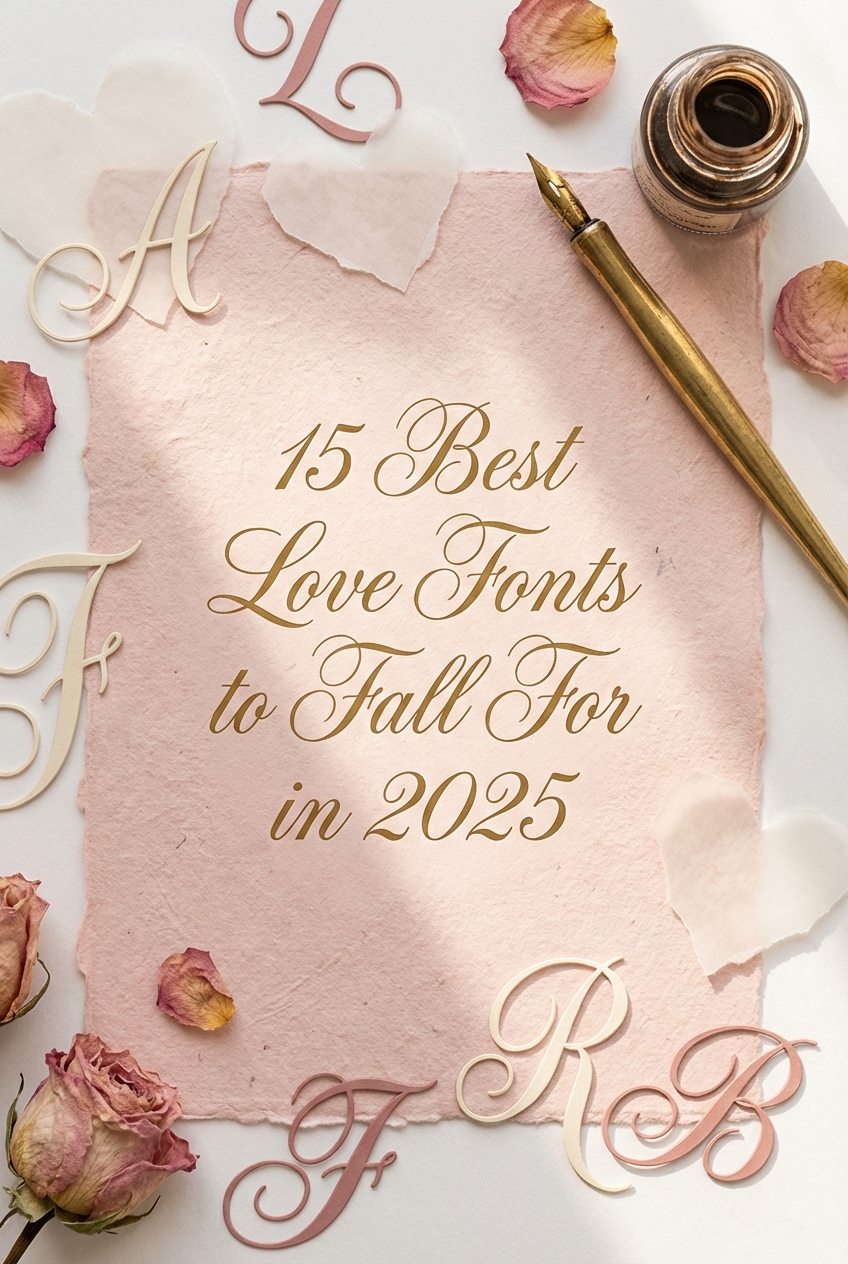
In the design world of 2025, warmth and authenticity are everything. Gone are the days of cold, minimalist typography; today’s trends are all about creating genuine emotional connections. That’s where love fonts truly shine. Whether you’re a designer crafting the perfect wedding invitation, a DIY crafter creating heartfelt Valentine’s cards, or a brand builder looking for a touch of romance, the right font is crucial. This curated list features 15 of the most popular and swoon-worthy love fonts right now. From elegant scripts to charming serifs, these typefaces will help your projects speak directly to the heart.
Top Collection Picks (2025-2026 Edition)
1. Peace and Love
Peace and Love is an immediate go-to for designers crafting visuals with a groovy, 70s-inspired vibe. From the creative minds at Font Door and Salt and Pepper Fonts, this display typeface radiates a distinct, free-spirited energy that feels both nostalgic and perfectly suited for current retro trends. Its bold, playful letterforms are designed to make a statement, delivering a powerful dose of personality that works wonders for headline text and eye-catching branding.
- Bold and chunky display letterforms
- A distinct retro, psychedelic-inspired style
- Expressive characters with a handmade feel
- Perfect for high-impact headlines and titles
- Music festival posters and album art
- Apparel graphics and merchandise design
- Branding for bohemian boutiques or retro cafes
- Social media quotes and event announcements
2. Little Love
Little Love exudes a tender and whimsical charm that feels as personal as a cherished love note. This handwritten script from Blessed Print dances across the page with an effortless, organic flow, combining the innocence of a youthful scrawl with a refined, elegant sensibility. Its delicate letterforms and authentic connections create a beautifully intimate and handcrafted feel, making it an ideal choice for designs that aim to communicate sincerity, warmth, and heartfelt emotion.
- A delicate, flowing handwritten script with a personal touch
- Includes natural ligatures for an authentic, seamless look
- Clean, thin strokes that maintain legibility
- Full set of uppercase, lowercase, numerals, and punctuation
- Wedding invitations, save-the-dates, and romantic event branding
- Boutique packaging, logos, and tags for artisanal products
- Heartfelt social media quotes and elegant blog headers
- Personalized stationery, signatures, and greeting cards
3. I Love You
I Love You is a charming and deeply personal script font from IM Studio that feels like a treasured handwritten note. Its elegant, flowing characters connect with an effortless grace, creating a look that is both sophisticated and wonderfully authentic. The slight variations in stroke and baseline give it a genuine, human touch, making it the perfect vehicle for messages that come straight from the heart. This font doesn’t just write words; it conveys sincere emotion with a timeless, romantic flair.
- A complete set of uppercase and lowercase letters, numerals, and punctuation.
- Includes beautiful stylistic alternates and ligatures for a custom, handwritten feel.
- Smooth, connected letterforms that mimic natural, flowing handwriting.
- Multilingual support for broad usability across different projects.
- Wedding invitations, save-the-dates, and romantic event stationery.
- Branding and logos for photographers, florists, and boutique businesses.
- Heartfelt quotes, social media graphics, and digital love notes.
- Greeting cards, product packaging, and personal signatures.
4. Love Eberline Monogram Font
Love Eberline Monogram Font is defined by its delicate, calligraphic strokes that intertwine to create breathtakingly romantic monograms. This font feels both personal and luxurious, turning any pair of initials into a bespoke piece of art. Its elegant swashes and decorative hearts are thoughtfully integrated, making it an ideal choice for projects that require a signature touch of handcrafted sophistication and timeless charm.
- Full set of uppercase and lowercase characters
- Specialized interlocking monogram ligatures
- Includes decorative heart swashes and alternate glyphs
- Wedding invitations, save-the-dates, and event signage
- Elegant branding for jewelers, boutiques, and photographers
- Creating personalized stationery, logos, and family crests
- Romantic social media quotes and high-end packaging design
5. Lovely
Lovely replaces stiff, formal calligraphy with a genuinely personal touch that feels like a handwritten note from a dear friend. This modern script font from Artkenza flows with an effortless grace, balancing elegance with a warm, approachable vibe. Its gentle curves and natural connections create an intimate and authentic look, making every word feel both heartfelt and beautifully composed. It’s the perfect choice for designs that need to communicate sincerity and sophisticated charm in a fresh, contemporary way.
- Flowing script with natural, connecting letterforms
- A full suite of uppercase and lowercase characters
- Includes stylistic alternates and ligatures for a custom look
- Multilingual support for broad usability
- Elegant wedding invitations, stationery, and romantic event branding.
- Logos and branding for florists, photographers, and boutique businesses.
- Heartfelt social media graphics, quotes, and blog headers.
- Product packaging that requires a delicate and personal touch.
6. Love Money
Love Money delivers a modern, handwritten script that feels both personal and luxurious. Crafted by Sealoung, this font balances the spontaneous energy of a quick signature with the refined elegance of classic calligraphy. Its smooth, flowing letterforms and effortless connections create a vibe that’s sophisticated yet approachable, making it a versatile choice for projects that need a touch of high-end charm without feeling stiff or formal.
- Elegant script with a natural, handwritten flow
- Includes uppercase, lowercase, numerals, and punctuation
- A full set of stylistic alternates and ligatures for custom flair
- Multilingual support for broad usability
- Luxury branding and high-end packaging
- Wedding invitations and save-the-dates
- Stylish social media quotes and post overlays
- Signature logos and personal watermarks
7. Lovely Days
Lovely Days feels less like a typeface and more like a cherished handwritten note from a dear friend. This font mimics the natural, elegant flow of modern calligraphy, with gentle curves and a relaxed baseline that gives it a wonderfully personal and approachable feel. It’s the kind of script that adds a touch of effortless romance and genuine warmth to any design, making your text look both polished and deeply authentic.
- A full set of stylistic ligatures for a natural, connected look
- Includes uppercase, lowercase, punctuation, and numerals
- PUA encoded characters for easy access to all glyphs
- Multilingual support
- Wedding invitations and save-the-date cards
- Elegant branding for photographers, florists, and boutiques
- Heartfelt social media quotes and announcements
- Personalized stationery and greeting cards
8. Love June
Love June evokes the feeling of a heartfelt, handwritten note passed in the middle of a warm summer day. Its gentle, flowing letterforms feel personal and approachable, carrying an air of effortless romance without being overly formal. This display font strikes a beautiful balance between a casual script and elegant design, making it an incredibly versatile choice for projects that need a touch of human warmth and sincerity.
- A charming and authentic handwritten script style
- Smooth, connected letterforms for a natural flow
- Includes a full set of uppercase and lowercase characters
- Optimized as a high-impact display font
- Wedding invitations and save-the-dates
- Branding for boutiques, bakeries, or photographers
- Engaging social media graphics and quote images
- Personalized stationery and heartfelt greeting cards
9. Story Love
Story Love if you are looking for a font that feels like a cherished, handwritten letter, this is it. This beautiful calligraphic script flows with an effortless grace, turning every word into a heartfelt declaration. Its delicate strokes and organic connections give it a deeply personal and intimate quality, perfect for projects that need a touch of human warmth and timeless romance. Story Love isn’t just a font; it’s a narrative tool for conveying emotion with elegance and sincerity.
- Graceful calligraphic script with a natural flow
- A full set of stylistic alternates and ligatures for an authentic handwritten look
- Includes uppercase, lowercase, numerals, and punctuation
- Multilingual support for broad usability
- Wedding invitations, save-the-dates, and romantic stationery
- Elegant branding for photographers, event planners, and boutique shops
- Heartfelt social media quotes and announcements
- Signature logos and high-end product packaging
10. Love Nurse
Love Nurse is the perfect remedy for uninspired design, injecting a dose of playful, handwritten charm into any project. This script font feels like a personal note passed in class or a sweet doodle on a prescription pad, blending a casual, looping elegance with a genuinely heartfelt vibe. Its smooth, organic strokes and slightly irregular baseline give it an authentic, human touch that feels both comforting and endearingly chic. It’s the kind of typography that doesn’t just spell out words; it whispers them with a warm and personal sincerity.
- Smooth, connected script letterforms that flow effortlessly.
- A charmingly irregular baseline for an authentic, handcrafted feel.
- Includes a full suite of ligatures and alternates to enhance its natural look.
- Comprehensive language support and punctuation.
- Wedding stationery, anniversary cards, and romantic event branding.
- Chic social media graphics, quote overlays, and lifestyle blog headers.
- Packaging design for boutique products, cosmetics, and handmade goods.
- Creating a personal and authentic brand logo or watermark.
11. Love Always
Love Always by Jozoor is a testament to the power of a personal touch in typography. This font flows with the effortless grace of genuine handwriting, where each letter connects with a delicate, organic rhythm. It’s not a loud or dramatic script; instead, it whispers elegance and intimacy, making it an incredibly versatile choice for designs that require a touch of modern romance. The clean lines and consistent stroke weight give it a polished, professional finish while maintaining its warm, handcrafted heart.
- A refined and elegant script typeface
- Includes a full set of uppercase and lowercase characters
- Stylistic ligatures for a natural, handwritten flow
- Multilingual support for broad usability
- Wedding invitations, save-the-dates, and event stationery
- Branding for photographers, florists, and boutique businesses
- Elegant social media quotes and post overlays
- Greeting cards and heartfelt personal messages
12. Boho Love
Boho Love is a vibrant color font that radiates a free-spirited, artisanal charm. Created by Letterayu, this typeface feels less like a digital asset and more like a piece of hand-painted artwork, with its sun-drenched palette and organic, flowing letterforms. Its inherent texture and warmth make it an incredibly expressive tool for designers looking to inject personality and a touch of romance into their work, sidestepping the need for complex layering effects to achieve a rich, handcrafted look.
- Vibrant OpenType-SVG format with built-in color and texture
- Authentic, hand-drawn aesthetic with organic letterforms
- An expressive and whimsical character set
- Ideal for creating an immediate artistic impression
- Bohemian-themed wedding invitations and event stationery
- Branding for artisanal shops, crafters, and lifestyle bloggers
- Eye-catching social media quotes and promotional graphics
- Unique greeting cards and poster designs
13. Heart Loved
Heart Loved is an absolute find for creatives working on boutique branding, particularly for florists, bakers, or handmade craft businesses. This script font by ninetefour strikes a beautiful balance between casual handwriting and elegant calligraphy, resulting in a style that feels both personal and polished. Its flowing letterforms and gentle curves convey a sense of warmth and authenticity, making any text feel like a heartfelt, handwritten note without sacrificing professional appeal.
- Authentic handwritten script style with clean, flowing lines
- Includes elegant ligatures and alternates for a custom feel
- A complete set of uppercase, lowercase, numbers, and punctuation
- Optimized for both print and web applications
- Wedding invitations and save-the-dates
- Logo design and branding for lifestyle or craft businesses
- Engaging social media quote graphics
- Product packaging and heartfelt greeting cards
14. Lovely
Lovely exudes a soft, personal charm that feels both classic and contemporary. This script font from Letterayu flows with a gentle, hand-penned elegance, featuring graceful ascenders and descenders that connect letters in a seamless, romantic dance. Its delicate strokes and organic imperfections give it an authentic, approachable feel, making it perfect for designs that need a touch of heartfelt sincerity without sacrificing sophistication.
- Flowing, interconnected script letterforms
- A complete set of uppercase and lowercase characters
- Includes stylistic alternates and ligatures for a natural look
- Support for multilingual characters
- Wedding invitations and save-the-date cards
- Elegant branding for photographers, florists, and boutiques
- Heartfelt social media quotes and announcements
- Signature logos and personal stationery
15. Clover
Clover is a charmingly organic script font that feels like a personal, handwritten note from a dear friend. Its flowing letterforms and gentle, rounded terminals create an atmosphere of warmth and authenticity, making it an effortlessly romantic choice for any design. This font from Pretty Glyphs strikes a beautiful balance between casual elegance and heartfelt sincerity, ensuring your text feels both approachable and special.
- A full set of uppercase and lowercase characters
- An array of lovely ligatures and stylistic alternates for a custom look
- Numbers, punctuation, and symbols included
- Multilingual support for broad usability
- Wedding invitations, save-the-dates, and romantic stationery
- Boutique branding for florists, bakers, or handmade craft shops
- Eye-catching social media quotes and heartfelt post overlays
- Greeting cards and personalized gift tags
🎨 Pro Tips for Pairing Romantic Fonts
A beautiful “love font” can lose its impact if not paired correctly. The key is to create contrast and hierarchy. Avoid pairing two complex script fonts together, as they will compete for attention and create a cluttered, illegible design. Instead, follow this simple rule:
- For Headlines & Accents: Use your chosen decorative love font (like an elegant script or a bold serif with swashes). This is your statement piece.
- For Body Text & Subtitles: Pair it with a clean, simple font. A minimalist sans-serif (like Lato or Montserrat) or a classic, readable serif (like Garamond or Merriweather) works perfectly. This ensures your main message is easy to read.
- Color & Weight: Use color and font weight to guide the viewer’s eye. Your romantic headline font could be in a bolder weight or a standout color, while the supporting text remains neutral and lighter.
🛠️ Unlocking the Magic: Using Glyphs, Swashes & Ligatures
Many of the most beautiful love fonts are powerful OpenType fonts that come packed with hidden extras like alternate characters (glyphs), decorative swoops (swashes), and unique letter-pairings (ligatures). These are what give your text that custom, hand-lettered feel. Here’s how to access them:
Most professional design software has a dedicated panel for this:
- In Adobe Illustrator & Photoshop, go to Window > Type > Glyphs.
- In Canva, select your text box, and if the font supports alternatives, a font-specific option may appear in the editor panel to select different styles.
- In Procreate, you need to copy-paste the specific glyphs from a font management app on your iPad.
Simply open the panel, select your special character, and double-click to insert it into your text. Experiment with these extras to add a truly unique and professional touch to your designs!
💡 Creative Ideas Beyond Wedding Invitations
While perfect for weddings and Valentine’s Day, love fonts are incredibly versatile. Their warmth and personality can elevate many other projects. Think outside the box:
- Boutique Branding: Use a romantic script for the logo and packaging of a bakery, flower shop, or handmade soap brand. It instantly communicates care and artisanal quality.
- Author & Blogger Branding: A charming serif or a soft script font can create a beautiful and approachable brand identity for a lifestyle blogger, a poet, or a fiction author.
- Restaurant Menus: Elevate a fine dining menu or a cozy cafe’s daily specials board by using an elegant love font for dish names and section headers.
- Personalized Gifts: Engrave a delicate script onto a piece of jewelry, print it on a custom photo album cover, or use it for a heartfelt quote on a framed art print.
📜 A Touch of History: The Evolution of Script Fonts
The elegant script fonts we call “love fonts” have deep roots in the history of handwriting. Before the printing press, all text was written by hand, leading to the development of formal calligraphic styles. Many modern script fonts are digital revivals or interpretations of classic styles like:
- Spencerian Script: A popular American handwriting style from the 19th century, known for its flowing loops and elegant ovals. It was the basis for logos like Coca-Cola and Ford.
- Copperplate: An umbrella term for various calligraphic styles written with a sharp-pointed nib pen, characterized by high contrast between thick and thin strokes. It’s the ancestor of many formal wedding scripts.
When you choose a script font, you’re not just picking a typeface; you’re tapping into centuries of tradition and the timeless art of beautiful handwriting.
And there you have it—15 stunning love fonts ready to bring romance and elegance to your 2025 projects. Don’t be afraid to experiment with these typefaces for everything from branding to personal crafts. The perfect font can transform your design from simple to simply unforgettable.